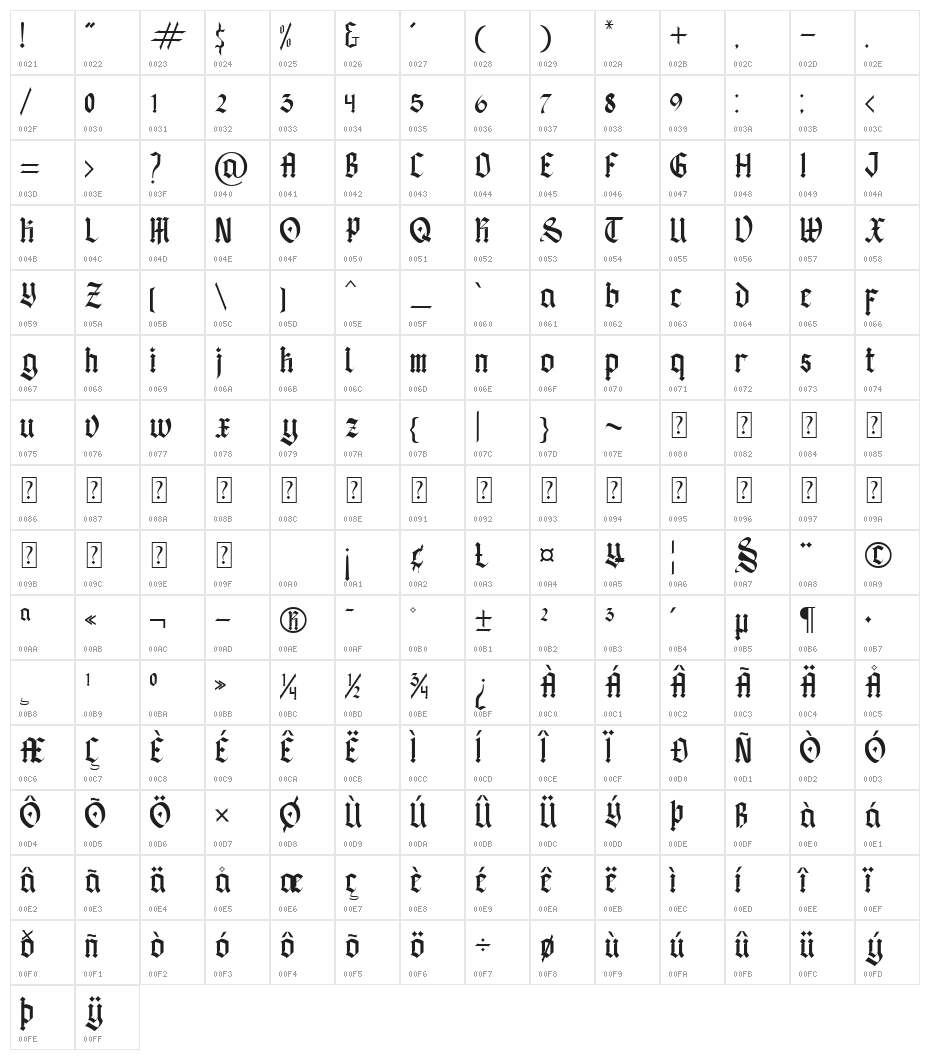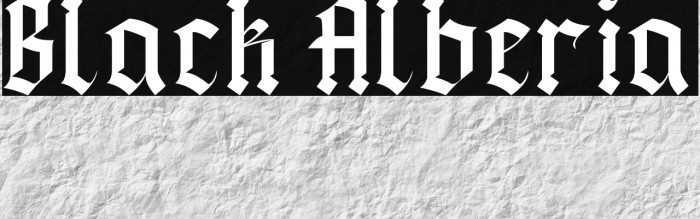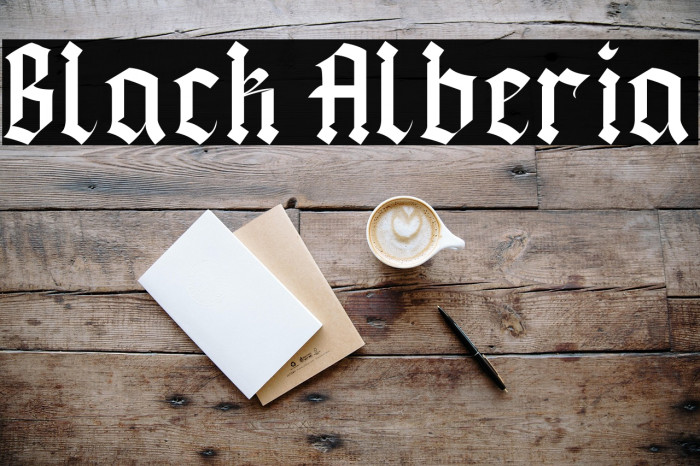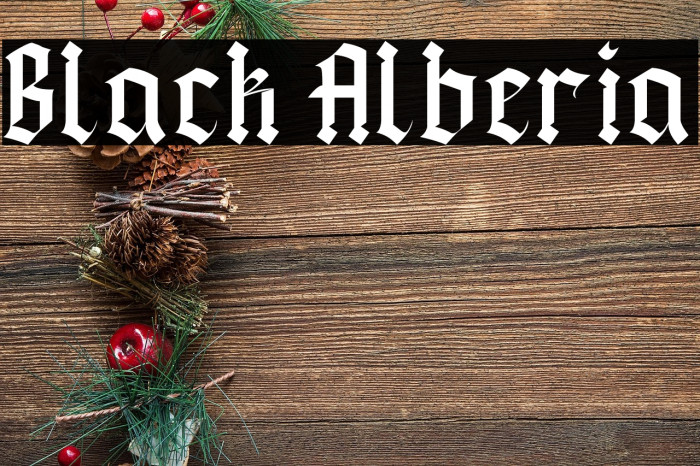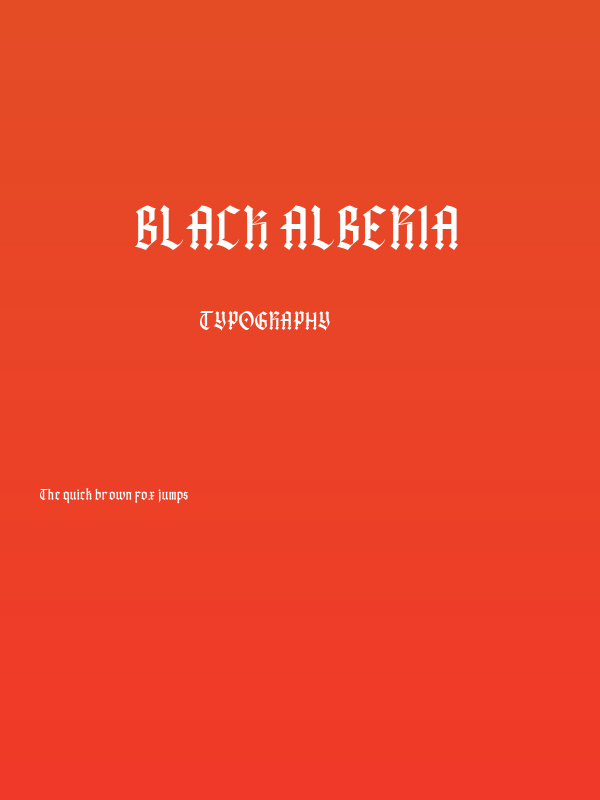
Black Alberia Font
Black Alberia Description
This font is a striking example of Blackletter style, characterized by its bold, angular strokes and intricate detailing. The uppercase letters exhibit a strong, commanding presence with sharp edges and pointed serifs, while the lowercase letters maintain a consistent flow with elegant curves and distinctive flourishes. The numerals are equally bold, maintaining the font's overall dramatic aesthetic. Special characters are designed with the same attention to detail, featuring unique shapes that complement the alphabetic characters. This font's historical and gothic appearance makes it ideal for projects that require a touch of medieval or traditional flair.
| Use Case | Headlines, Logos, Decorative text |
| Proposed Projects | Ideal for historical documents, gothic-themed designs, book covers, and event invitations. |